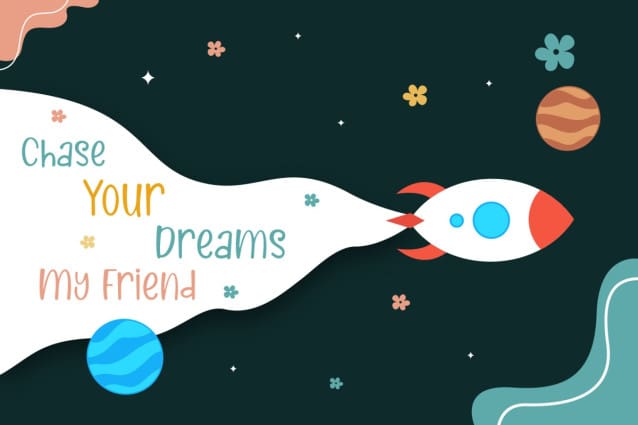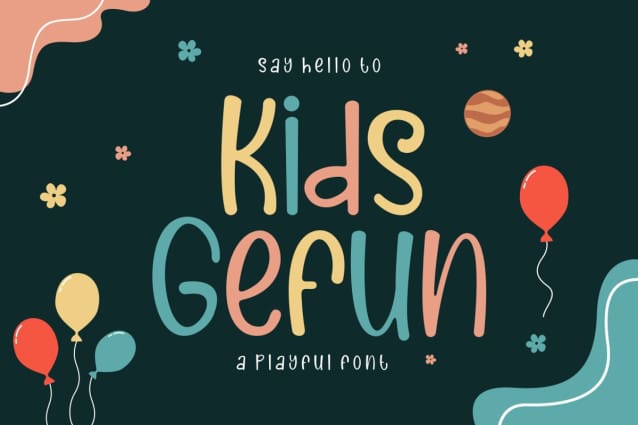
Kids Gefun Font
Kids Gefun Font – Modern Font is a bold and authentic display font. This font is perfect for any branding project such as logos, t-shirt printing, creative products, and more. extraordinary in a variety of contexts.